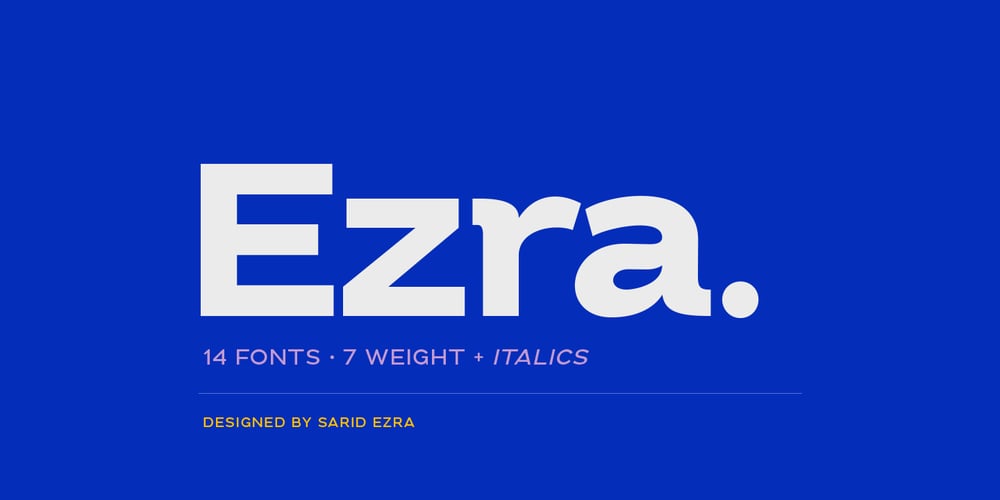
Ezra Font Family was designed by Sarid Ezra and published by Sarid Ezra. Ezra contains 14 styles and family package options. A modern and slightly wide sans serif, Ezra Sans Family!Ezra Sans is a casual and modern sans. With slightly wide form and modern details, this font looks more casual for your any project and designs. This font also contain an alternate in selected characters that will make this font even more stunning. You can use it for a tittle, logo, quotes, or become a pairing in any font. This font also support multi language!Support Multilingual up to 14 languages